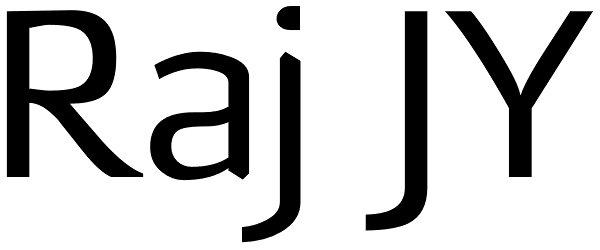
Raj JY
JY Raj has had a lengthy gestation. The original one was a sans serif adaptation of a slab serif typeface design by Jure Stojan. Raj looked instantly better as a sans serif. After refining it further one lengthy night in 2001, he showed the drafts...